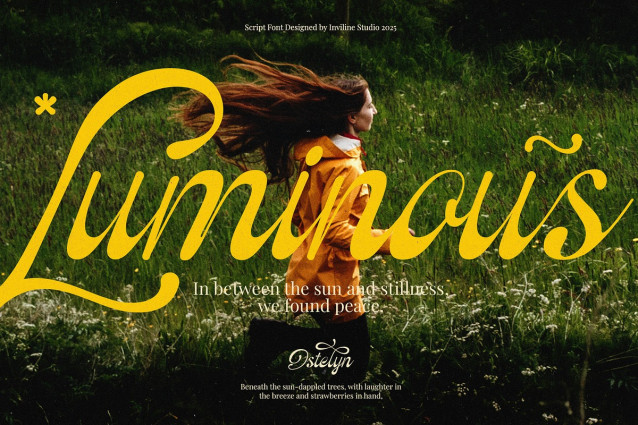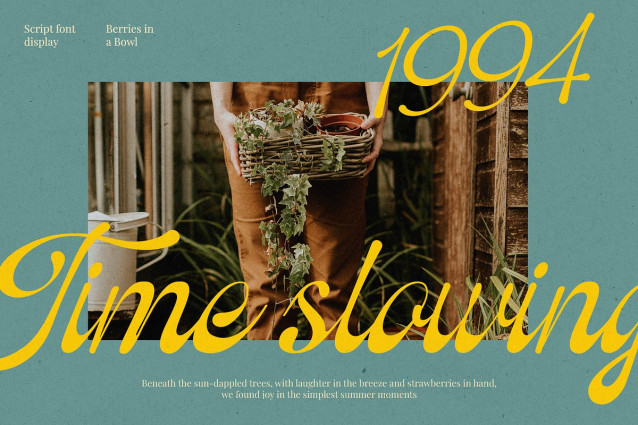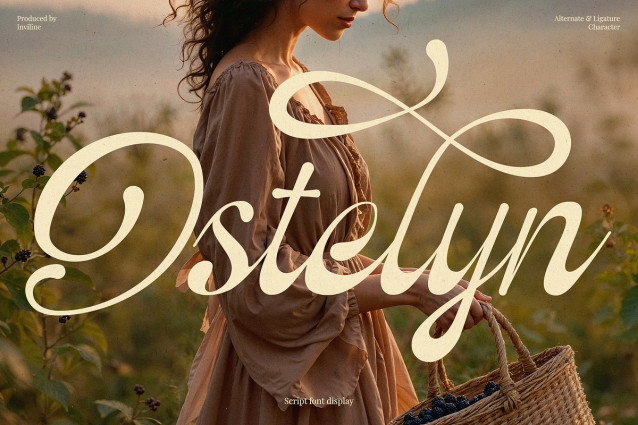
Ostelyn Script Font
Ostelyn Script Font is a refined script font designed for those who appreciate elegance and sophistication. With its smooth curves and delicate style, it adds a graceful, personal touch to high-end branding, invitations, and modern editorial designs.